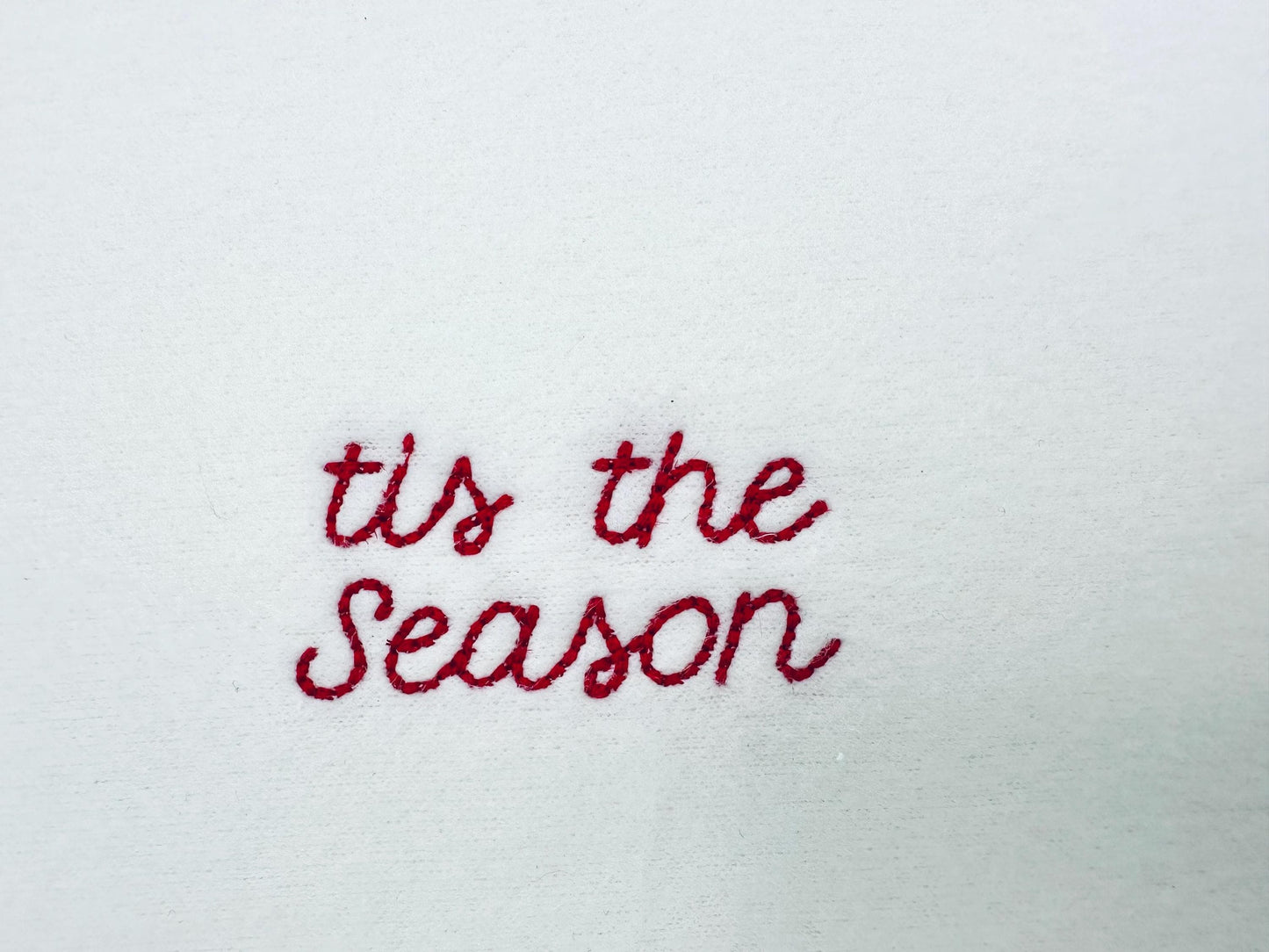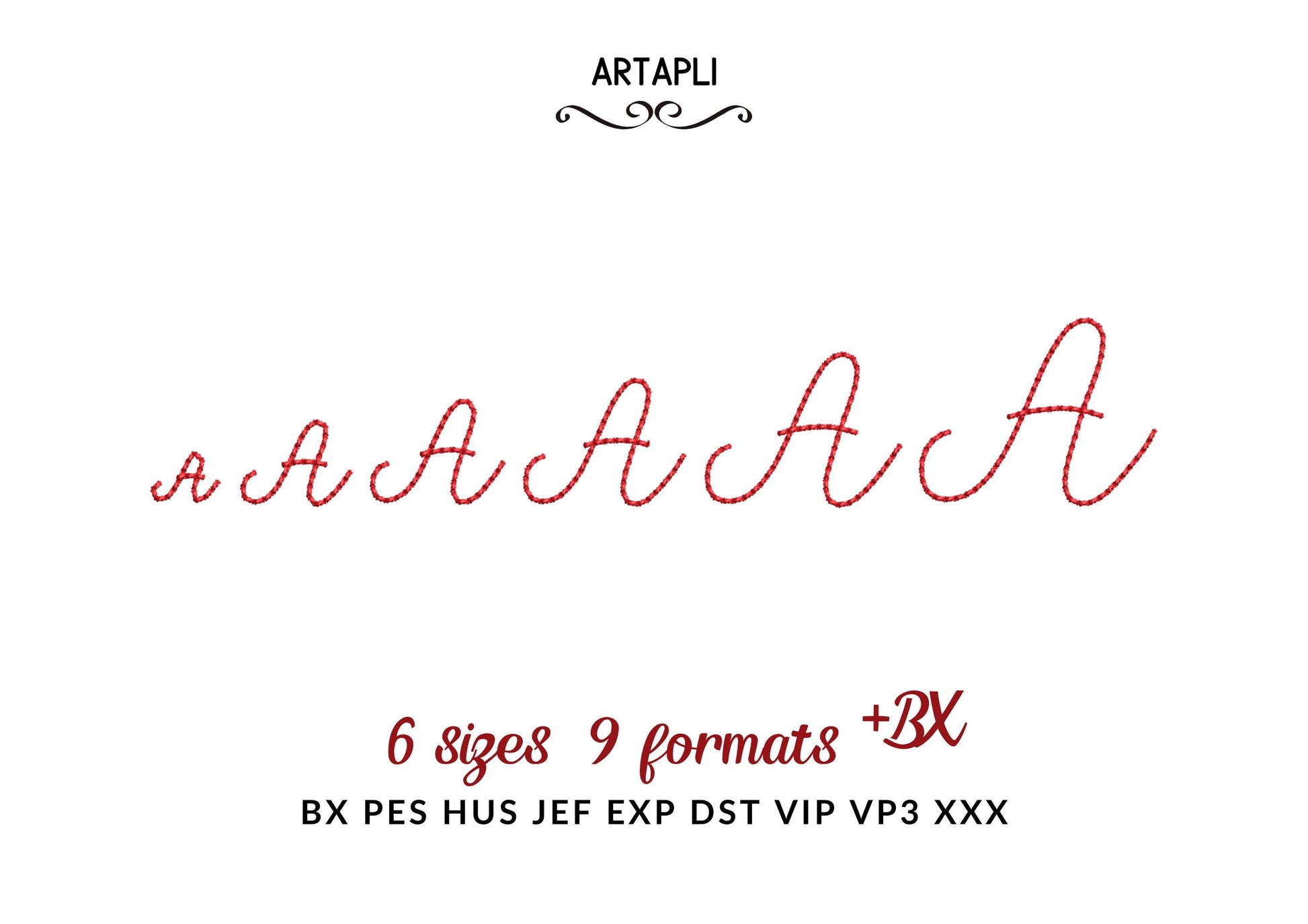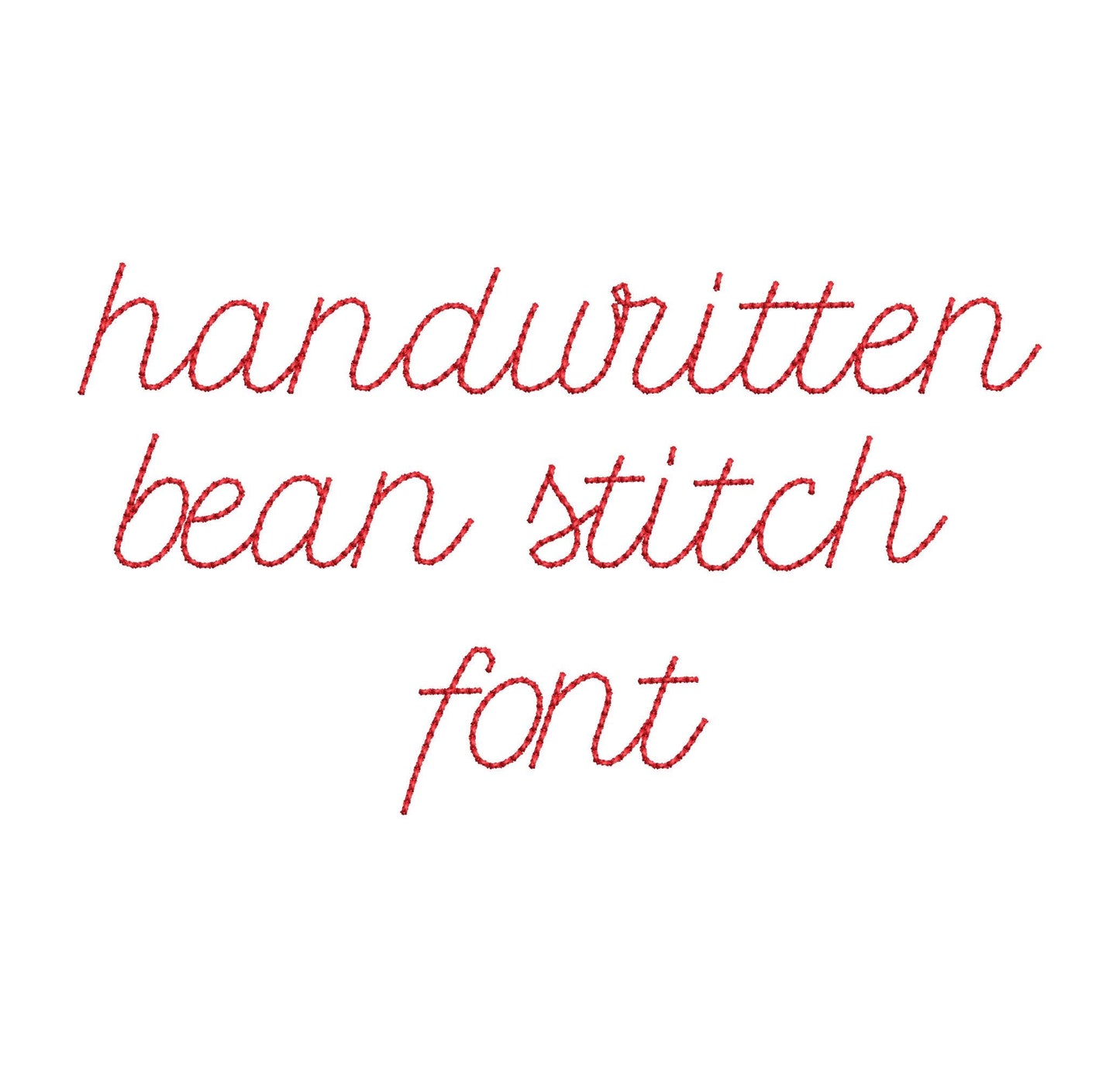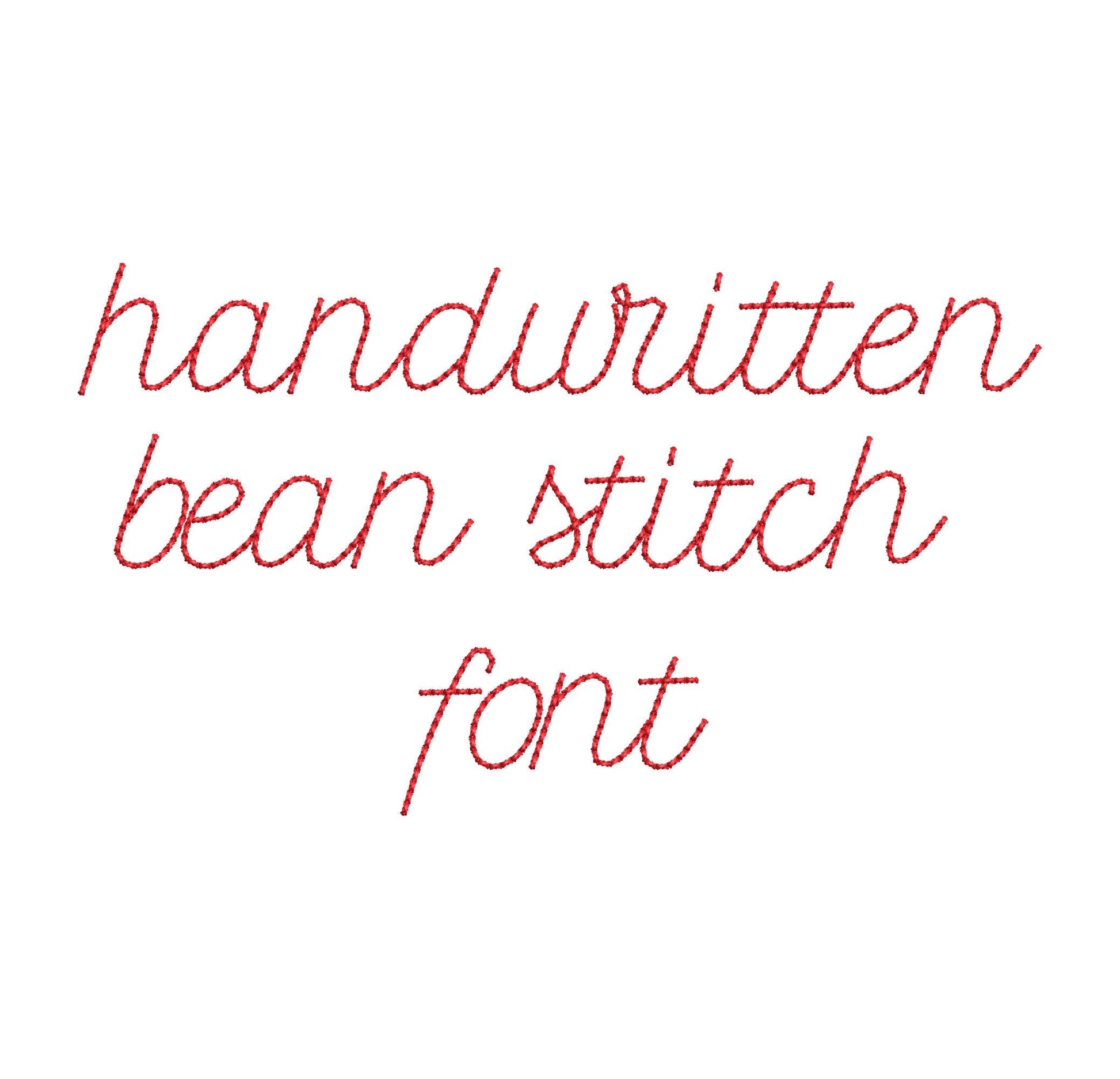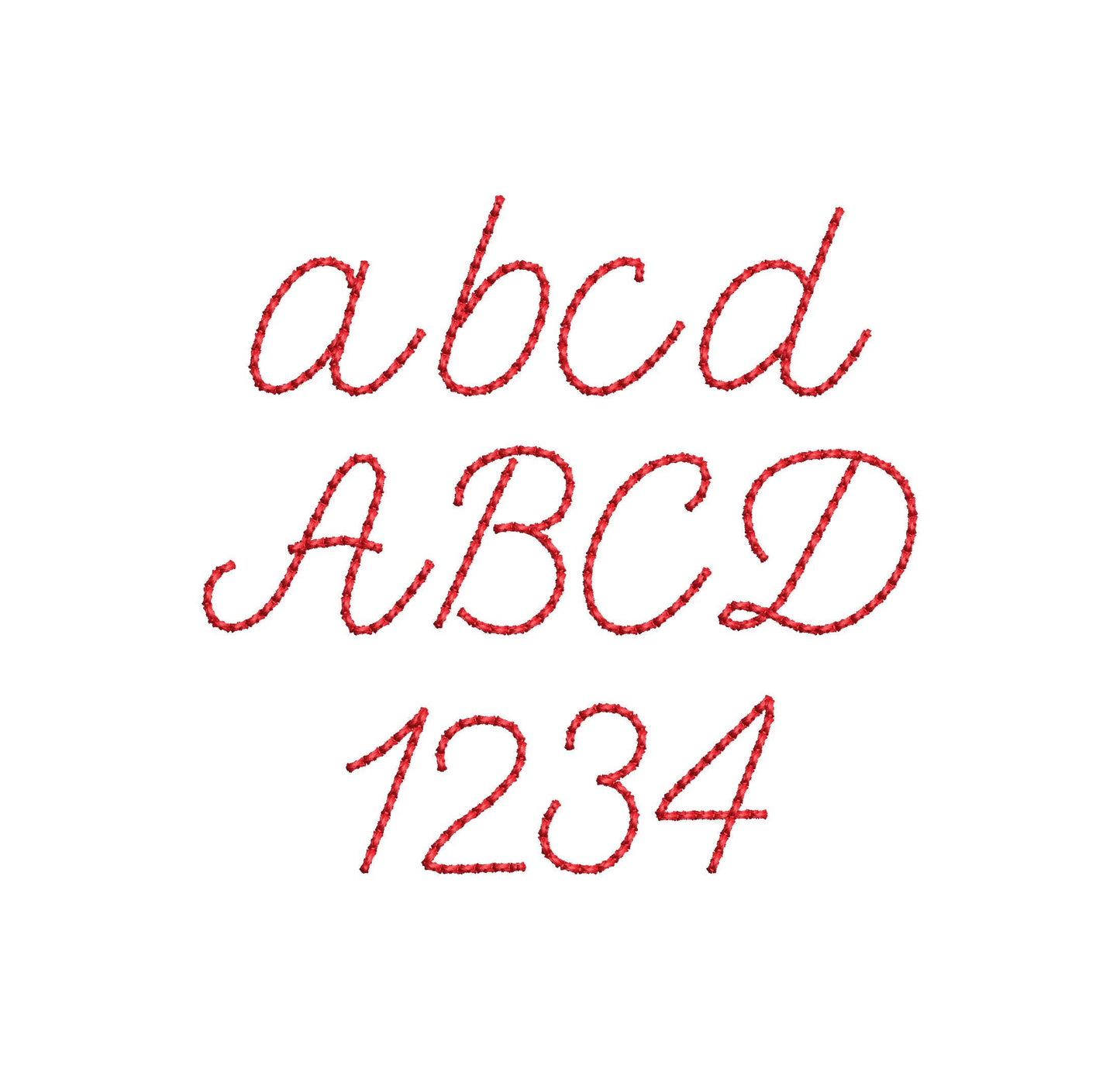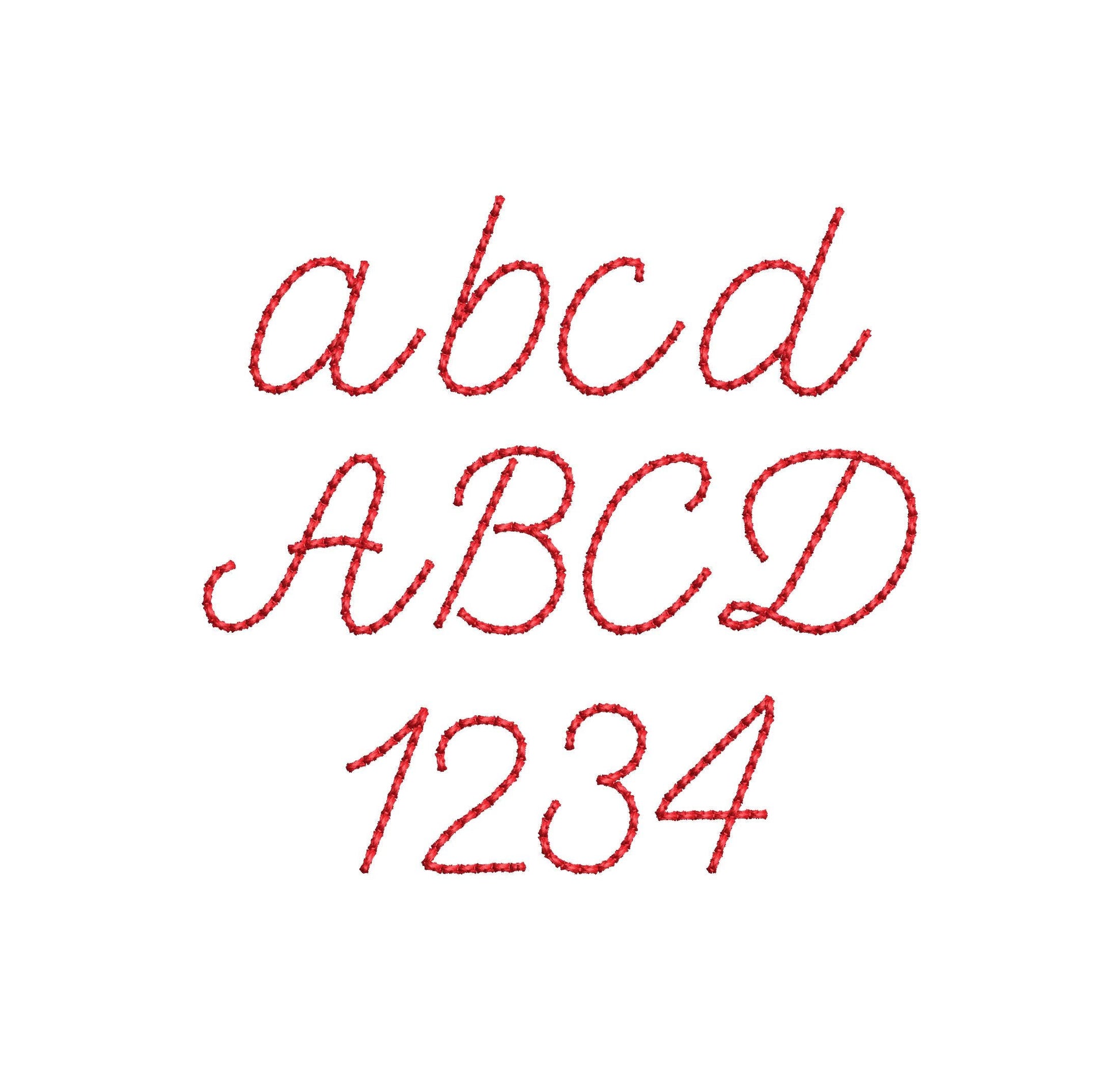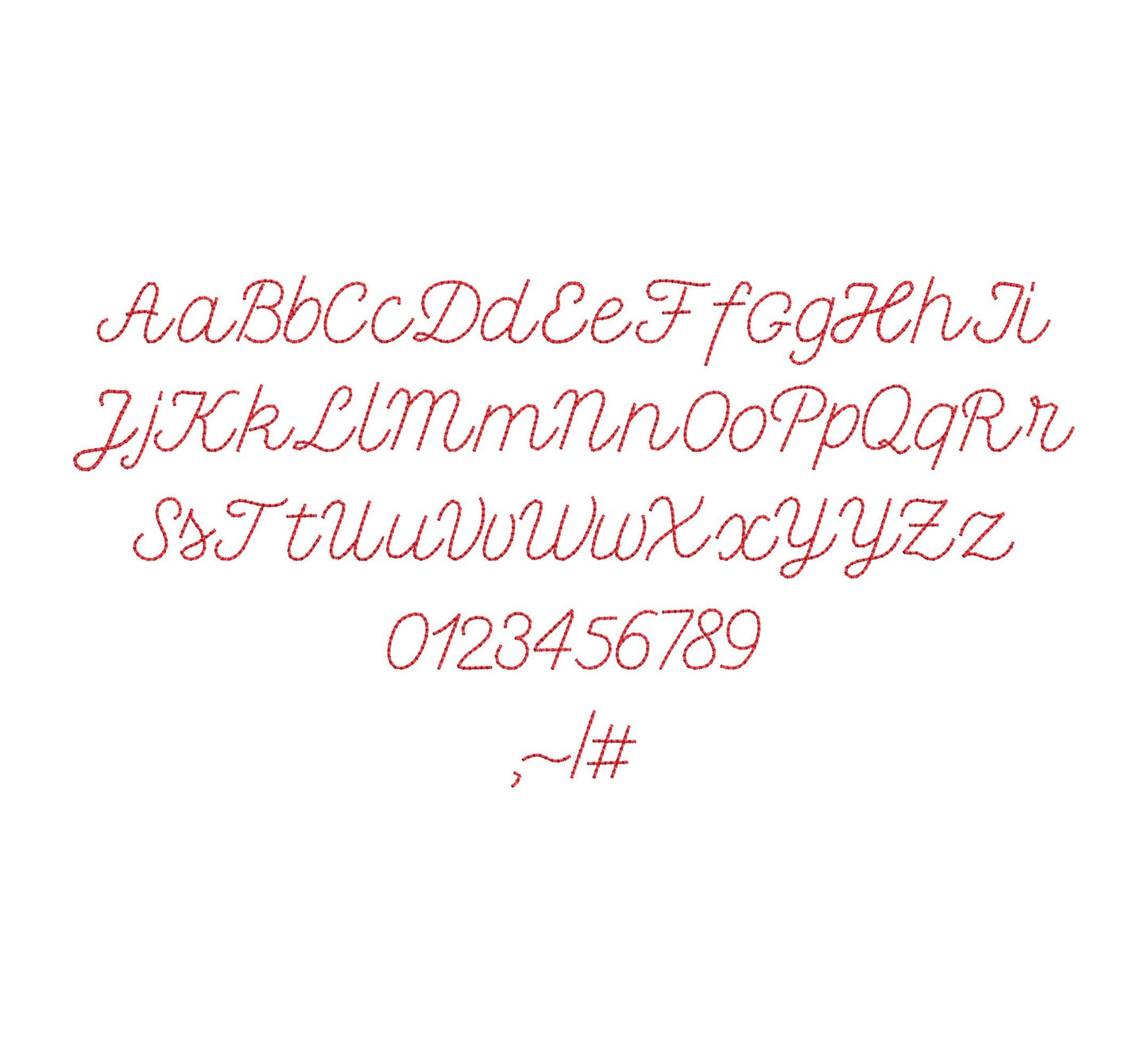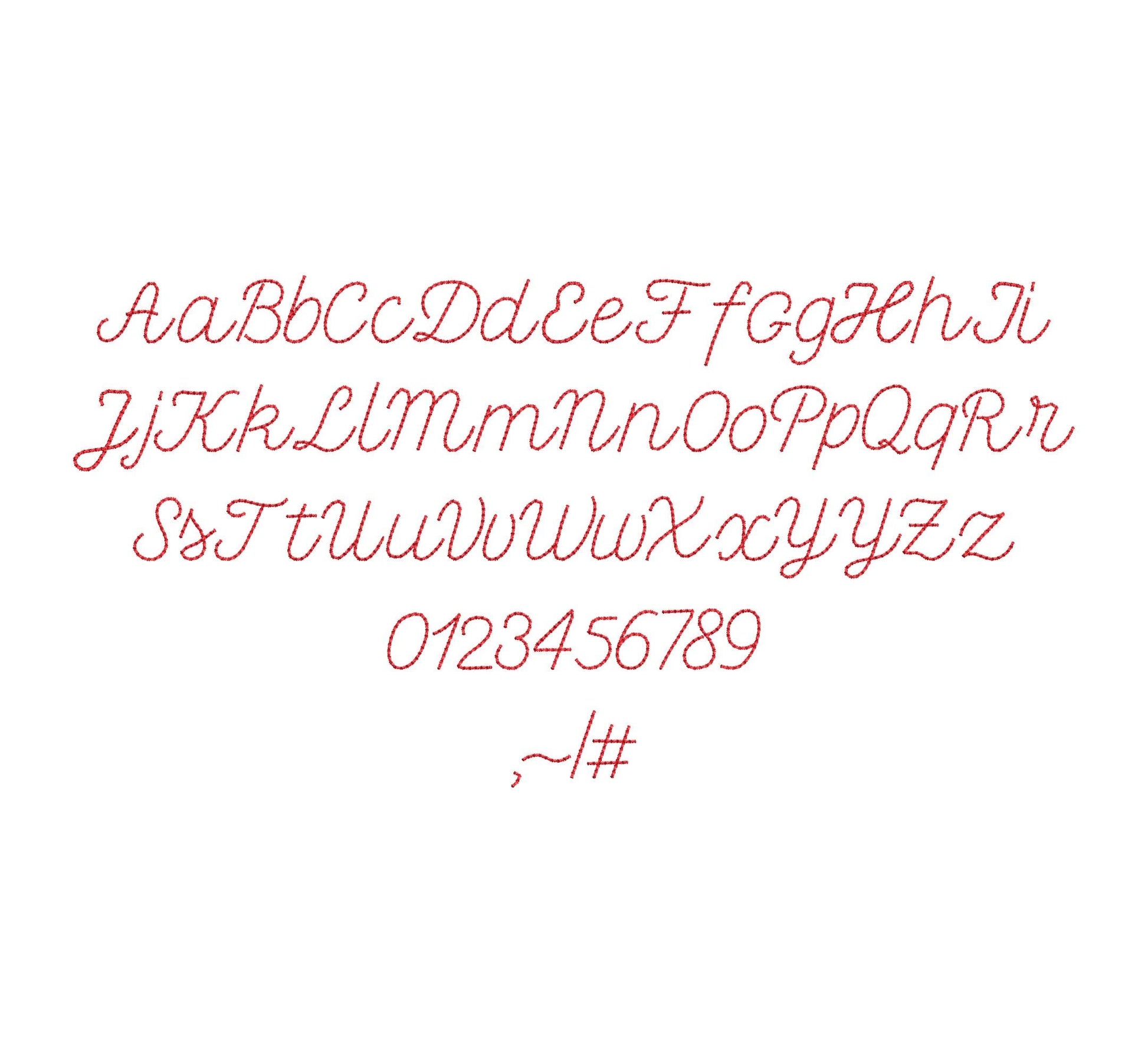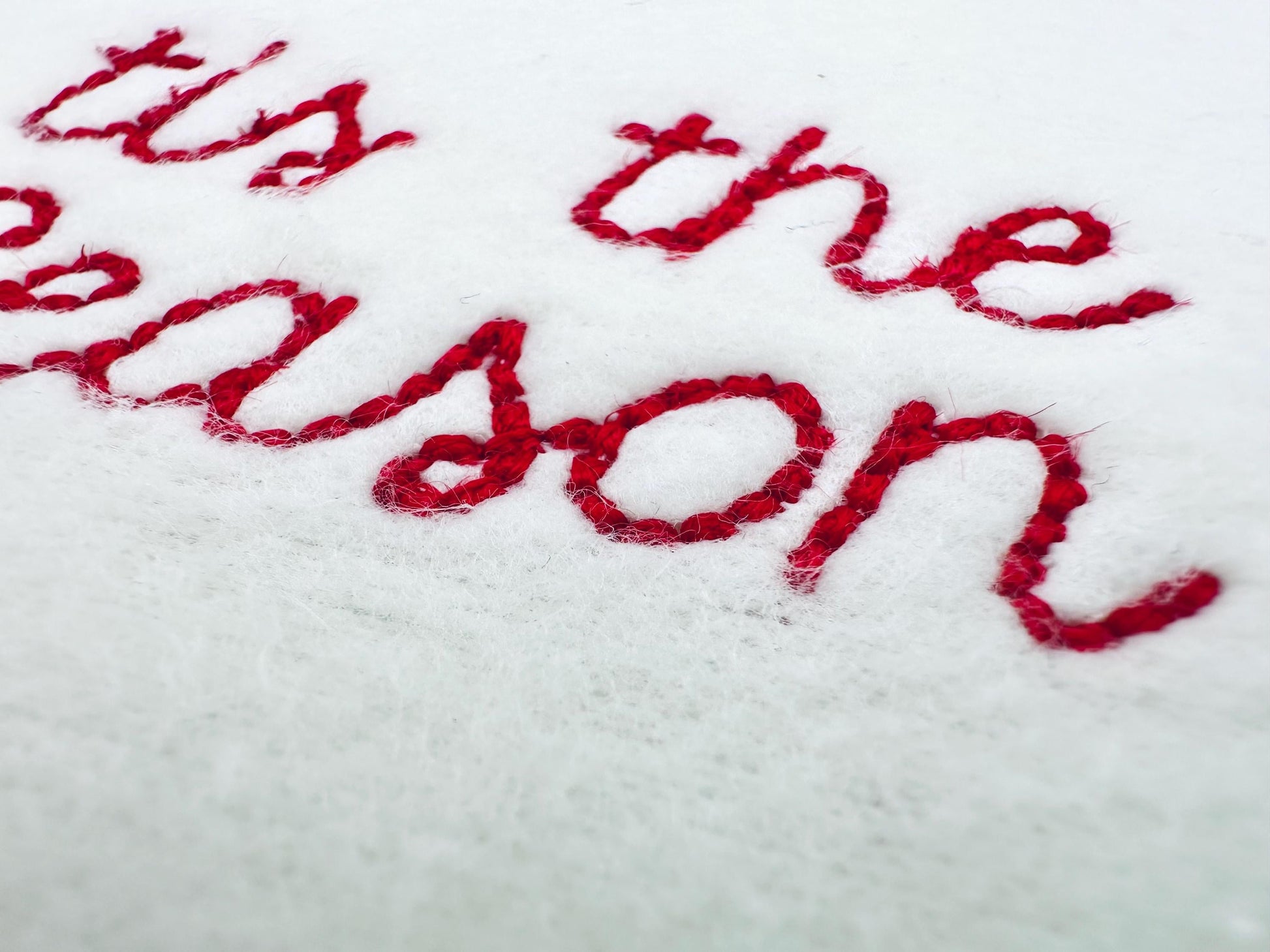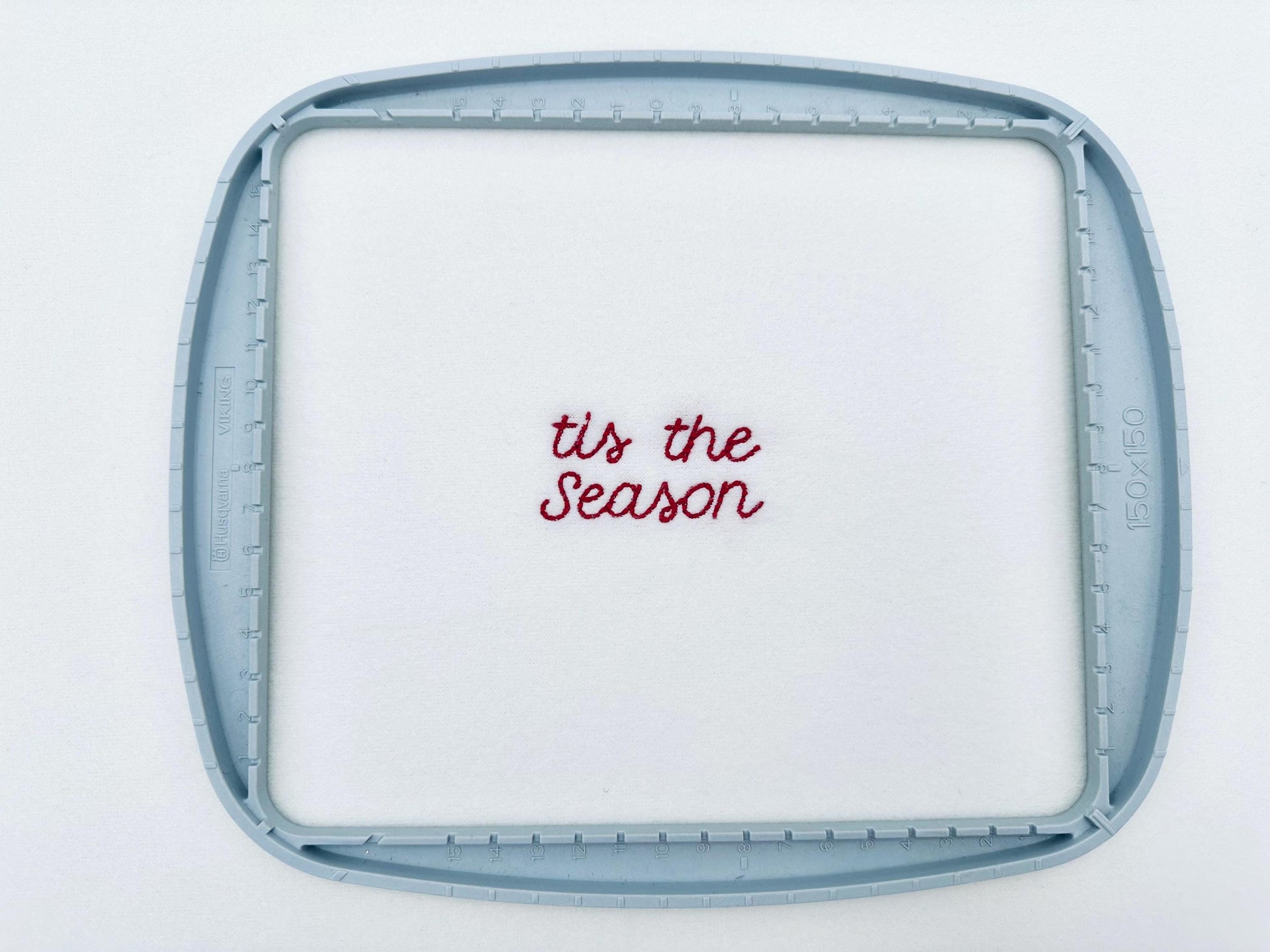
Or click to open the linkA petite handwritten script in a raised bean stitch, down to micro sizes. Made for baby and kids' names on tiny spots.
The letters come in six sizes: 0.4, 0.7, 0.8, 1, 1.2 and 1.5 inches. A slightly raised bean stitch gives the letters a soft handmade look. Includes uppercase and lowercase letters A to Z, numbers 0 to 9 and punctuation.